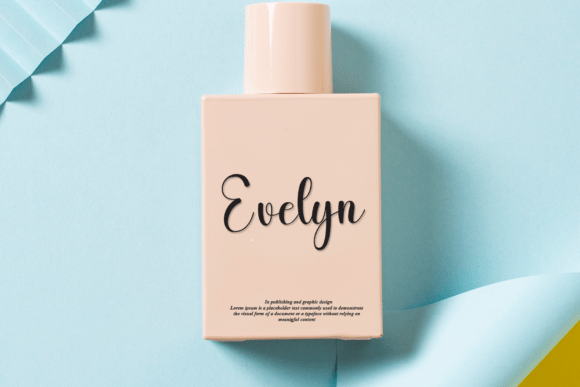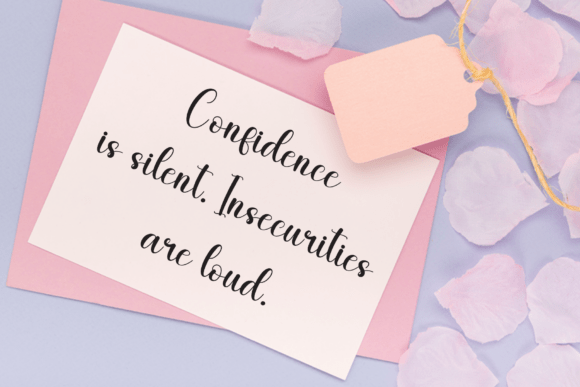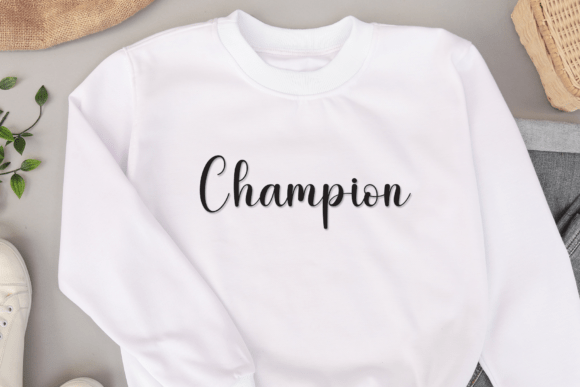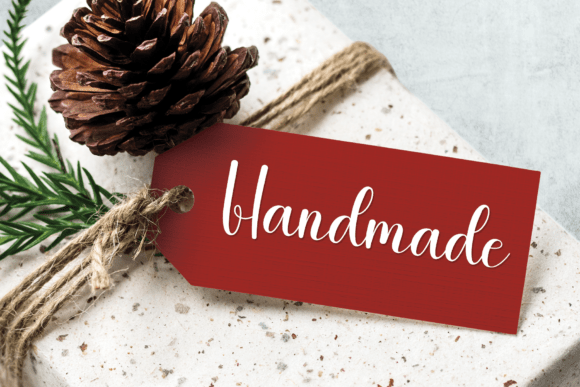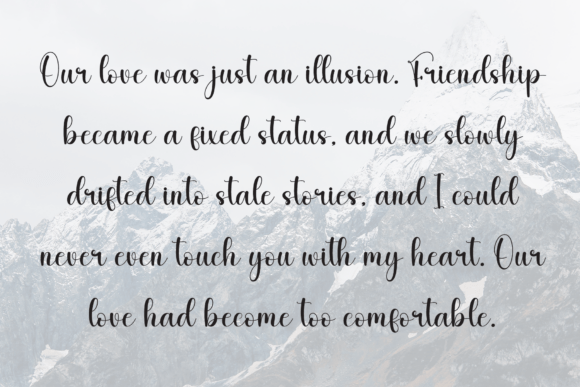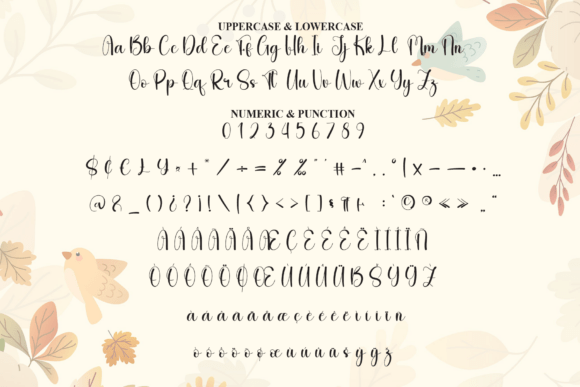
Welcome to the World of Autumn Font
Have you ever found yourself scribbling in a notebook, letting the pen dance across the page as you brainstorm a new idea or plan a special event? For many creatives, those moments of pure imagination are the spark that sets their projects ablaze. And for those who love typography, there’s one font that’s sure to bring a touch of whimsy and charm to your designs: Autumn Font.
Perfect for nuptial announcements, celebratory cards, and any design that needs a dash of fun, Autumn Font is a standout typeface that balances playful charm with an endearing allure. Its warm, captivating aura adds an emotional layer to your words, making it a valuable tool for designers looking to connect with their audience on a deeper level.
Autumn Font Key Features
- Unique Characteristics: Features a warm, natural color palette and intricate, organic details, evoking the feeling of fall foliage
- Font Family: Consists of 12 individual fonts, each with its own unique style and flair
Autumn Font Review
Overall, the Autumn font has a unique and cozy feel to it, making it perfect for fall-themed designs or projects that require a warm and inviting aesthetic. ✨ The subtle details and flourishes add a touch of sophistication to the font, making it more than just a seasonal font.
- Unique and seasonal design: The Autumn font is perfect for fall-themed designs, and its unique design makes it stand out from more generic fonts.
- Sophisticated details: The font’s subtle details and flourishes add a touch of sophistication, making it more versatile than just a seasonal font.
- Cozy feel: The Autumn font has a cozy feel to it, making it perfect for designs that require a warm and inviting aesthetic.
- Limited versatility: While the font is unique and sophisticated, it may not be suitable for all types of projects or designs.
- Not suitable for small text: The font’s details and flourishes may make it difficult to read in small text sizes.
- Not ideal for modern designs: The font’s warm and cozy feel may not be suitable for modern or minimalist designs.
Overall, the Autumn font is a great choice for designers who want to add a unique and seasonal touch to their designs. While it may have some limitations, its unique design and sophisticated details make it a great addition to any designer’s toolkit.
To get the most out of Autumn Font, use it for:
1. Seasonal designs, such as fall-themed invitations or social media graphics.
2. Nature-inspired projects, such as botanical illustrations or outdoor advertisements.
3. Rustic or vintage-themed designs, such as wedding invitations or product labels.
Remember to adjust the font size and style to balance with other design elements.
Can I customize the Autumn Font?
Yes, the Autumn Font is designed to be highly customizable. The font includes a range of OpenType features, such as ligatures, swashes, and contextual alternates, which can be accessed using design applications that support OpenType, such as Adobe Creative Cloud.